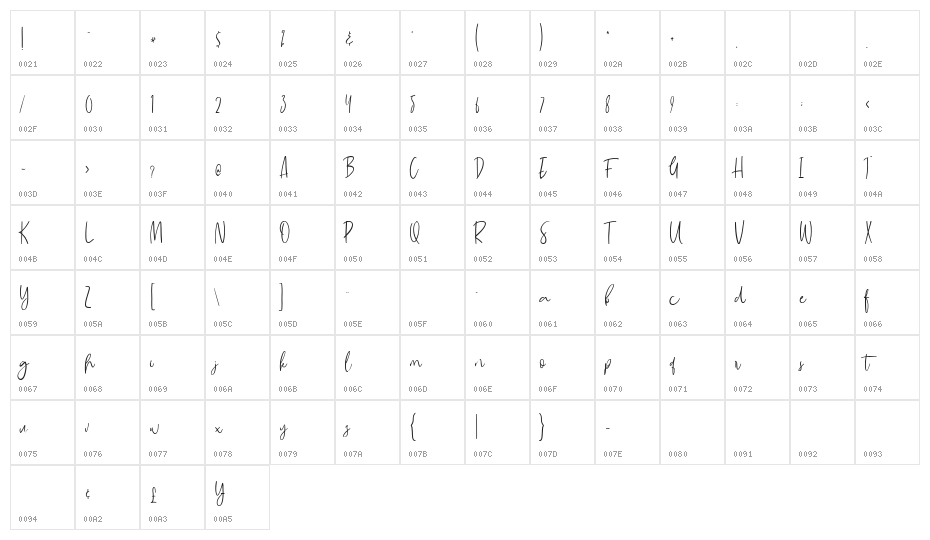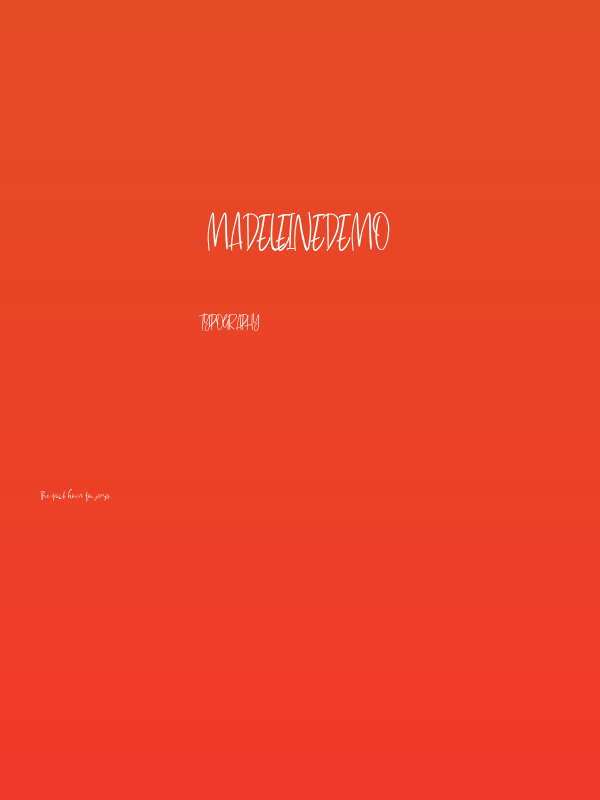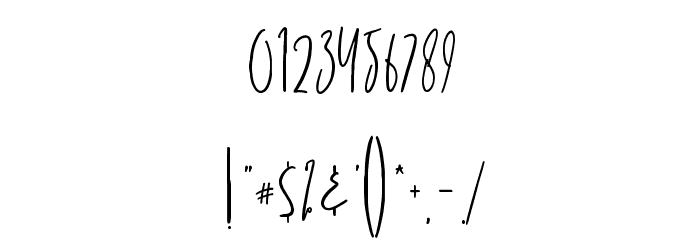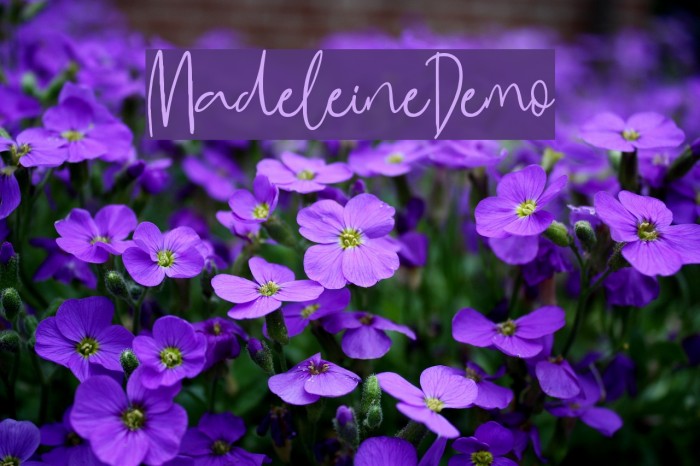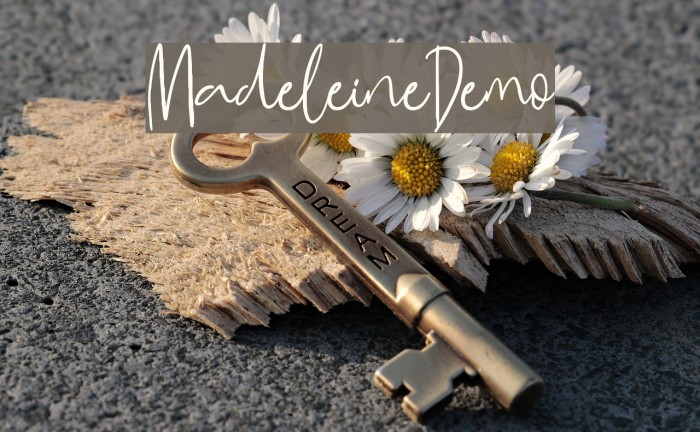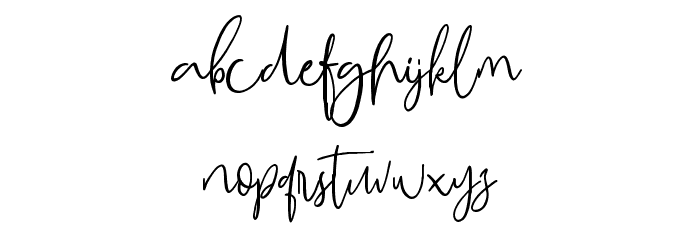
MadeleineDemo Font
MadeleineDemo Description
This font features a playful and elegant handwritten style, characterized by its flowing and cursive letterforms. The uppercase letters are tall and slightly narrow, with a whimsical flair that adds a touch of sophistication. The lowercase letters maintain a consistent flow, with smooth curves and loops that enhance its handwritten appeal. The numbers and special characters are crafted with the same attention to detail, ensuring a cohesive look across all glyphs. This font exudes a sense of personality and charm, making it ideal for projects that require a personal touch.